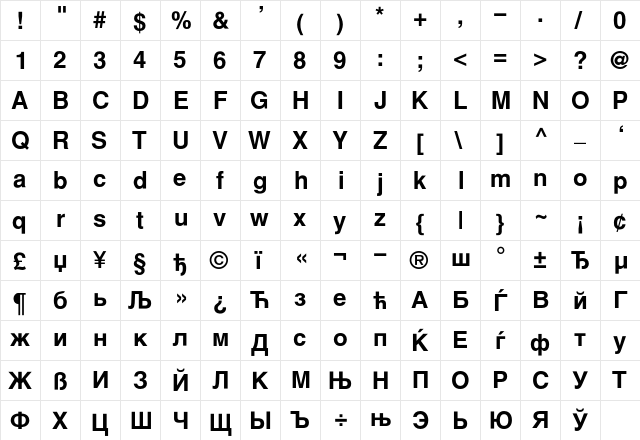
HelveticaCyrillicBold Regular
Design Context for HelveticaCyrillicBold Typeface
HelveticaCyrillicBold is a composed and adaptable typeface that performs quietly and consistently across a wide range of design contexts. Its bold stroke weight gives it real presence on the page.